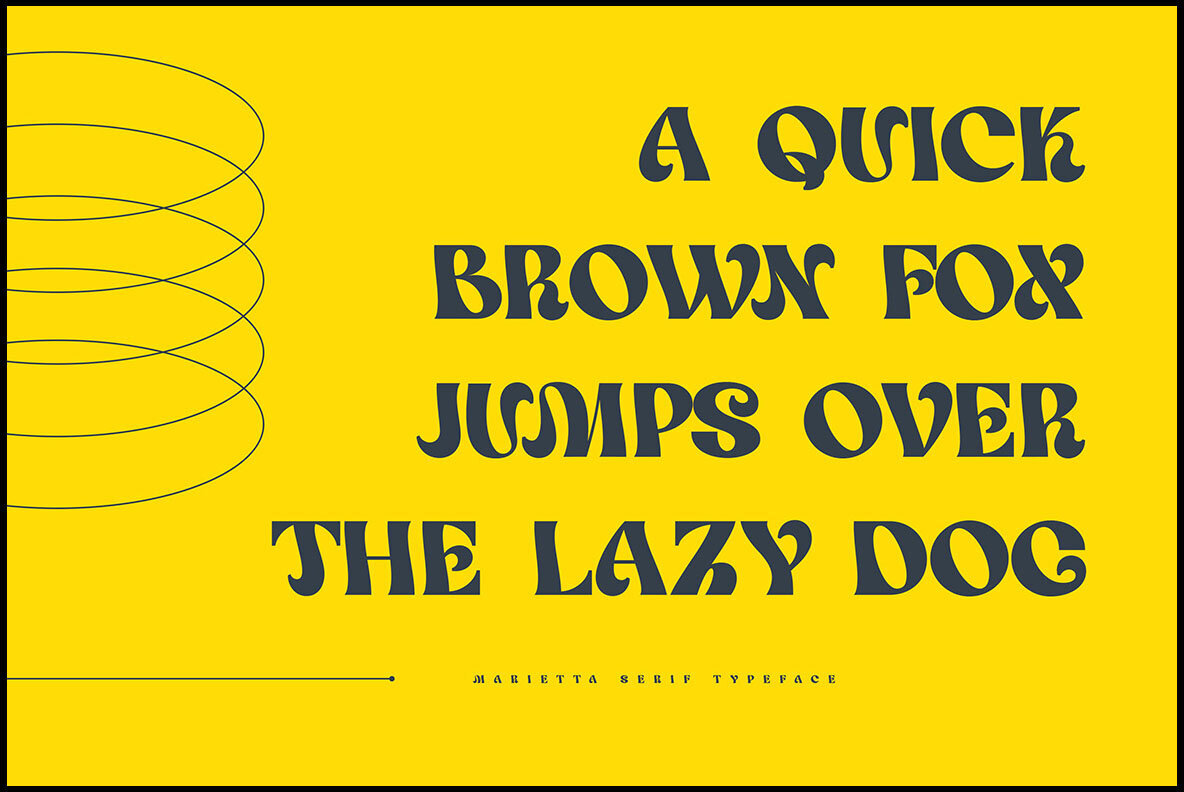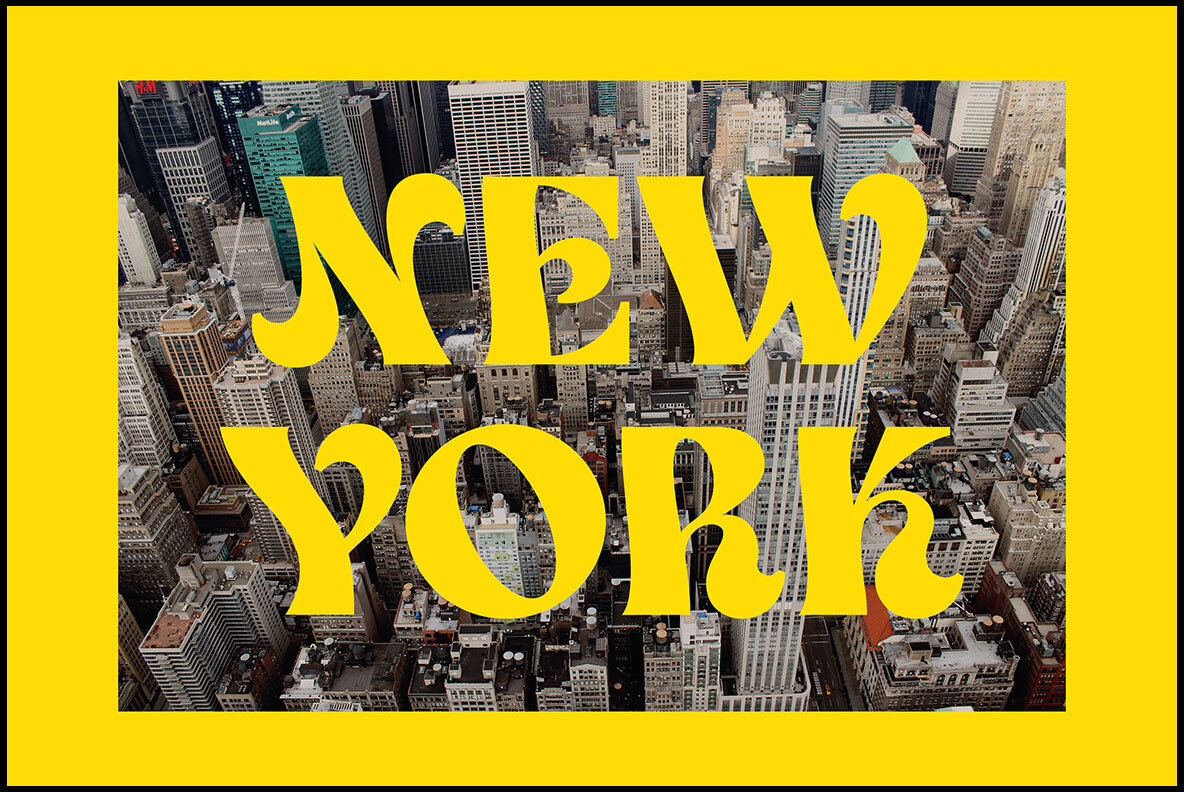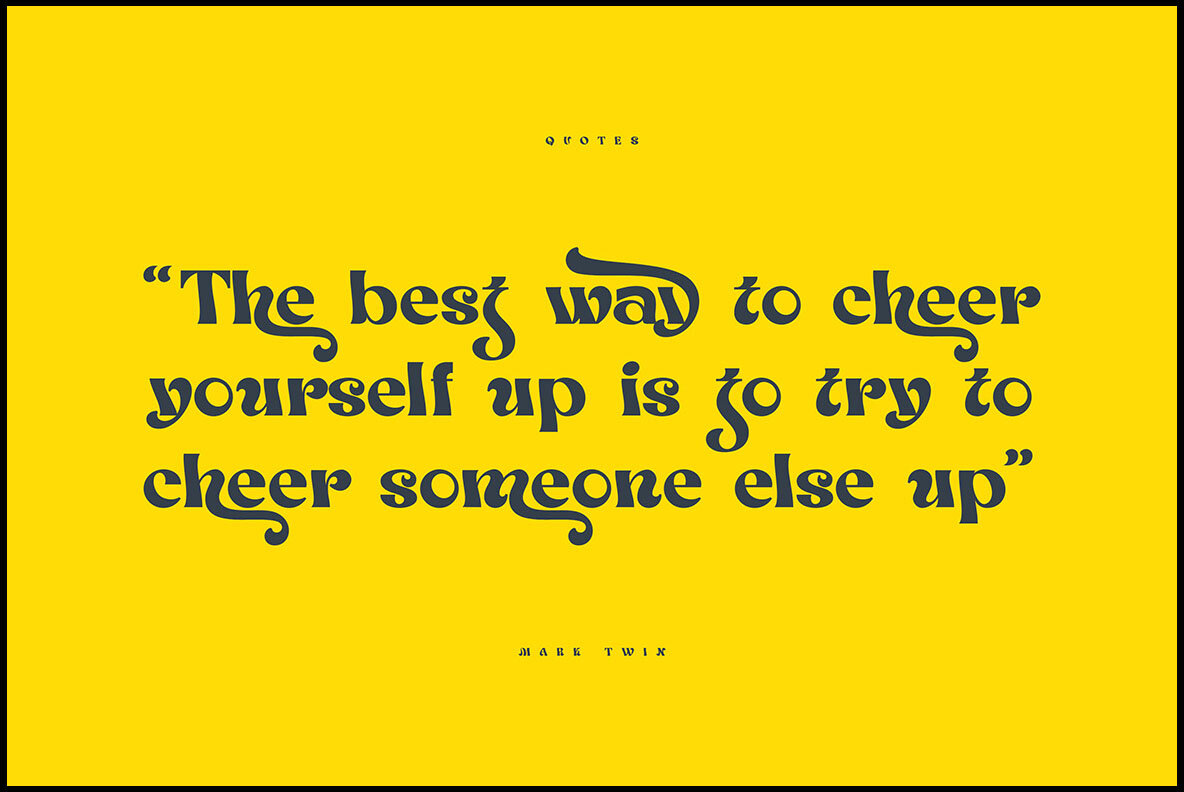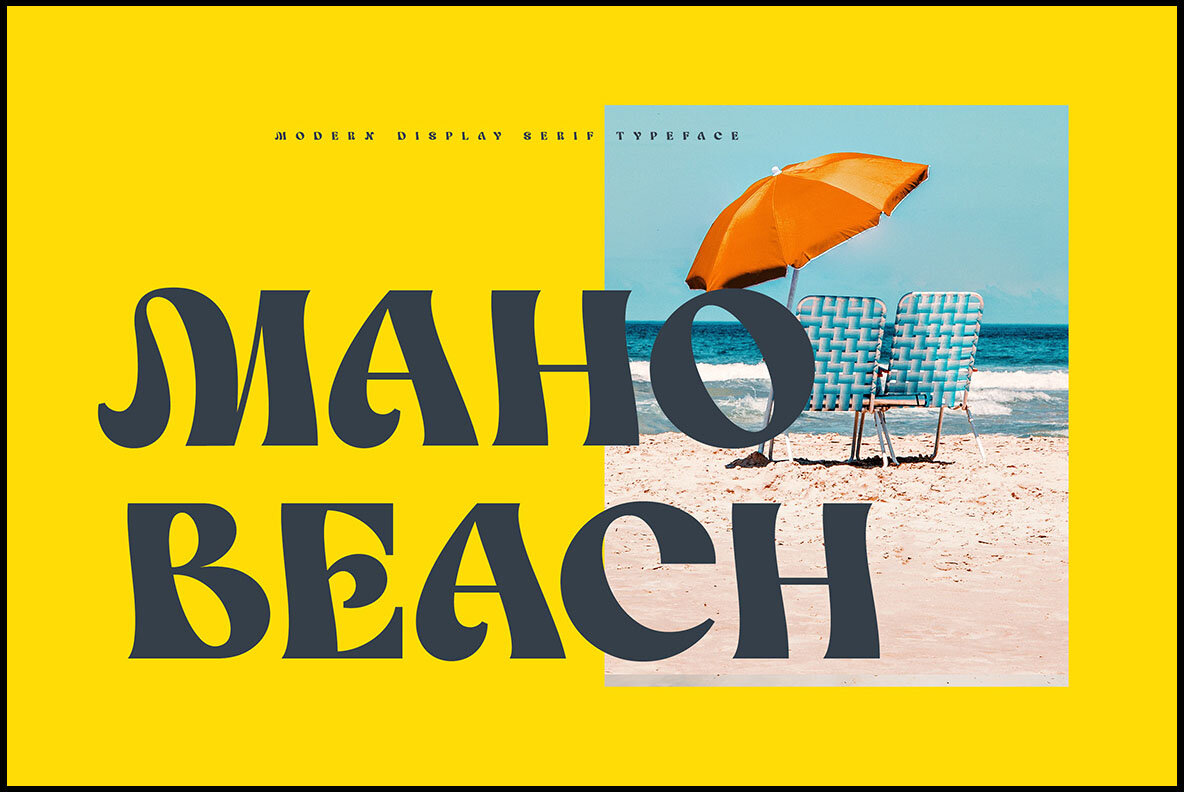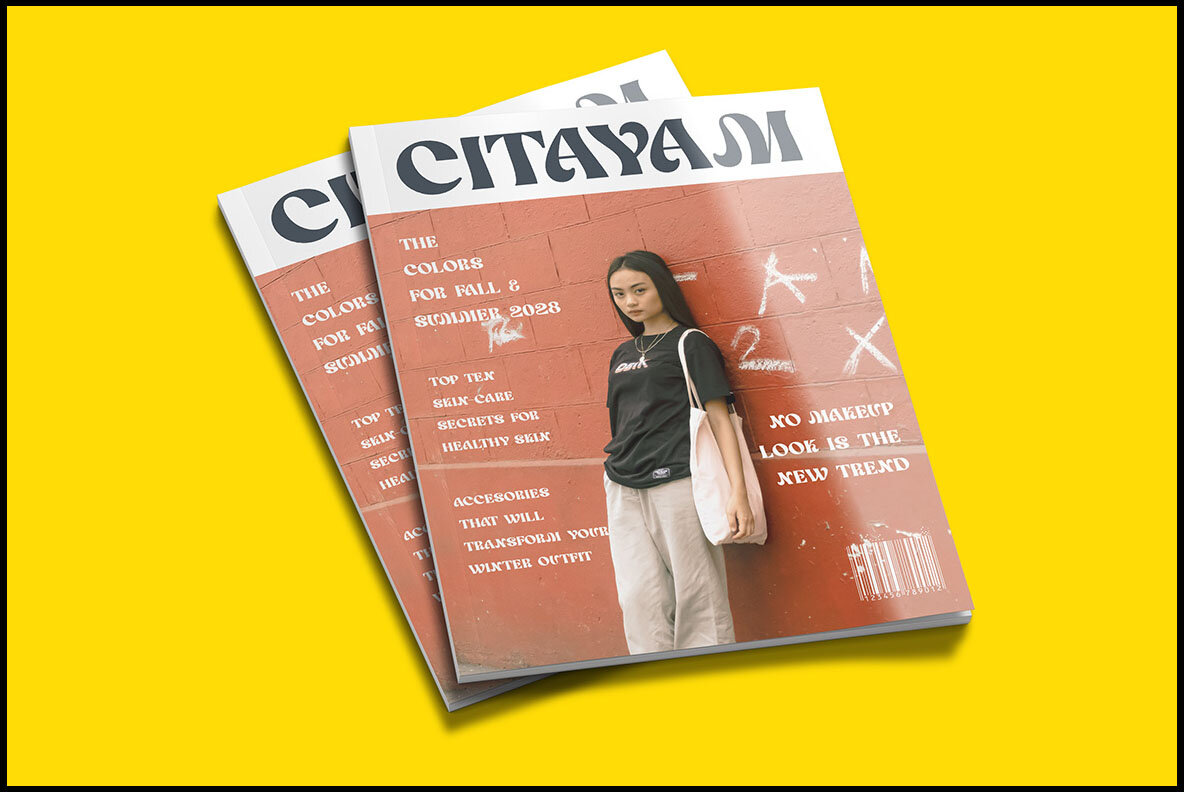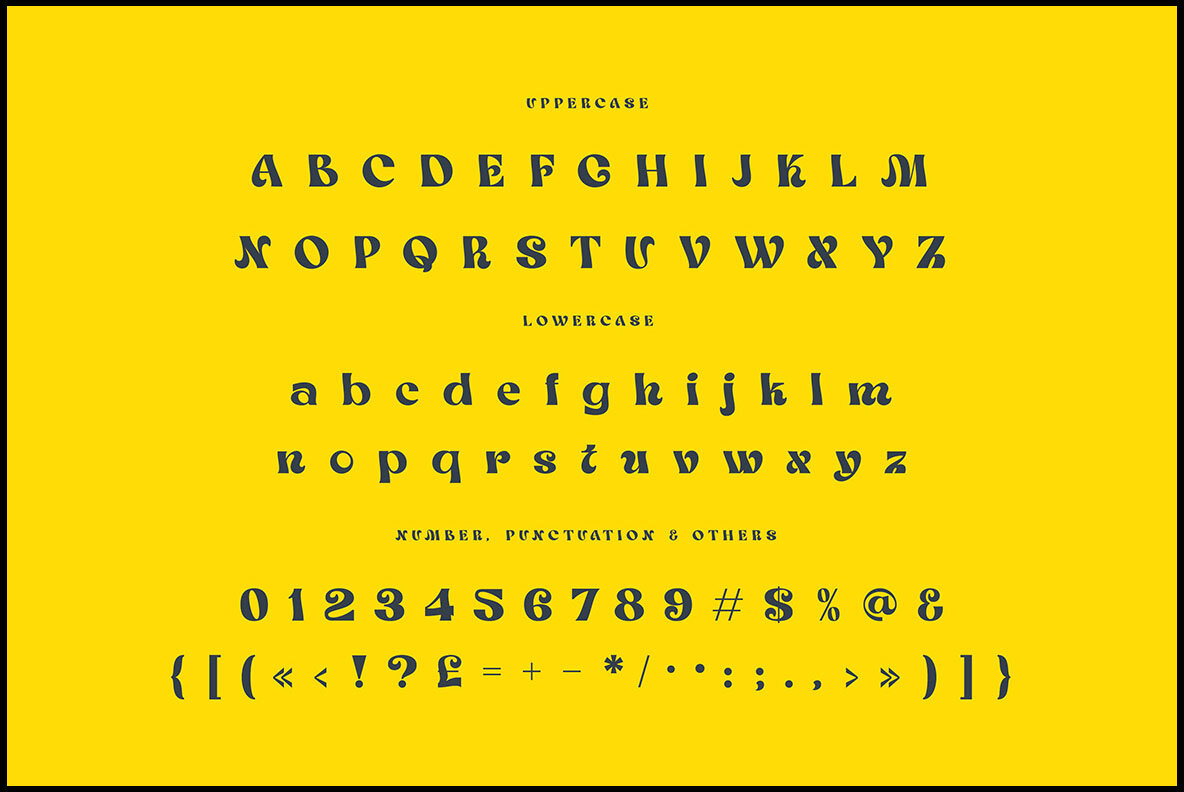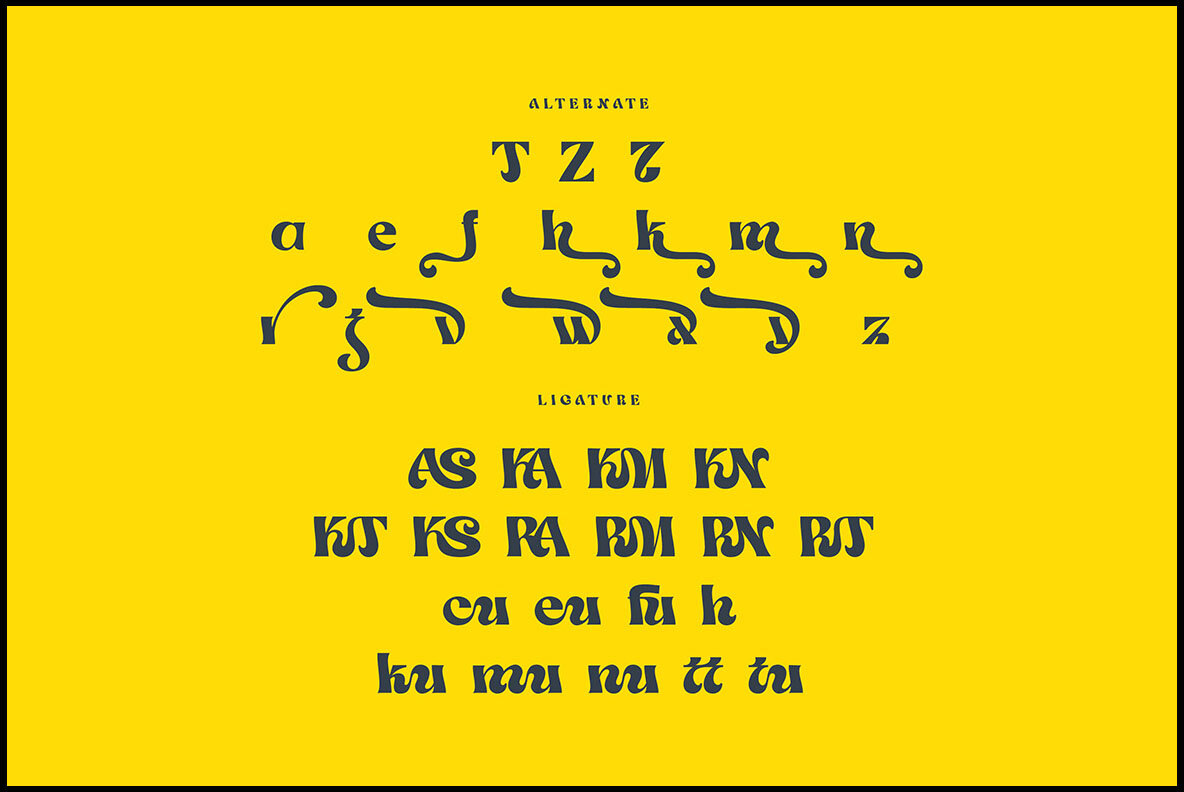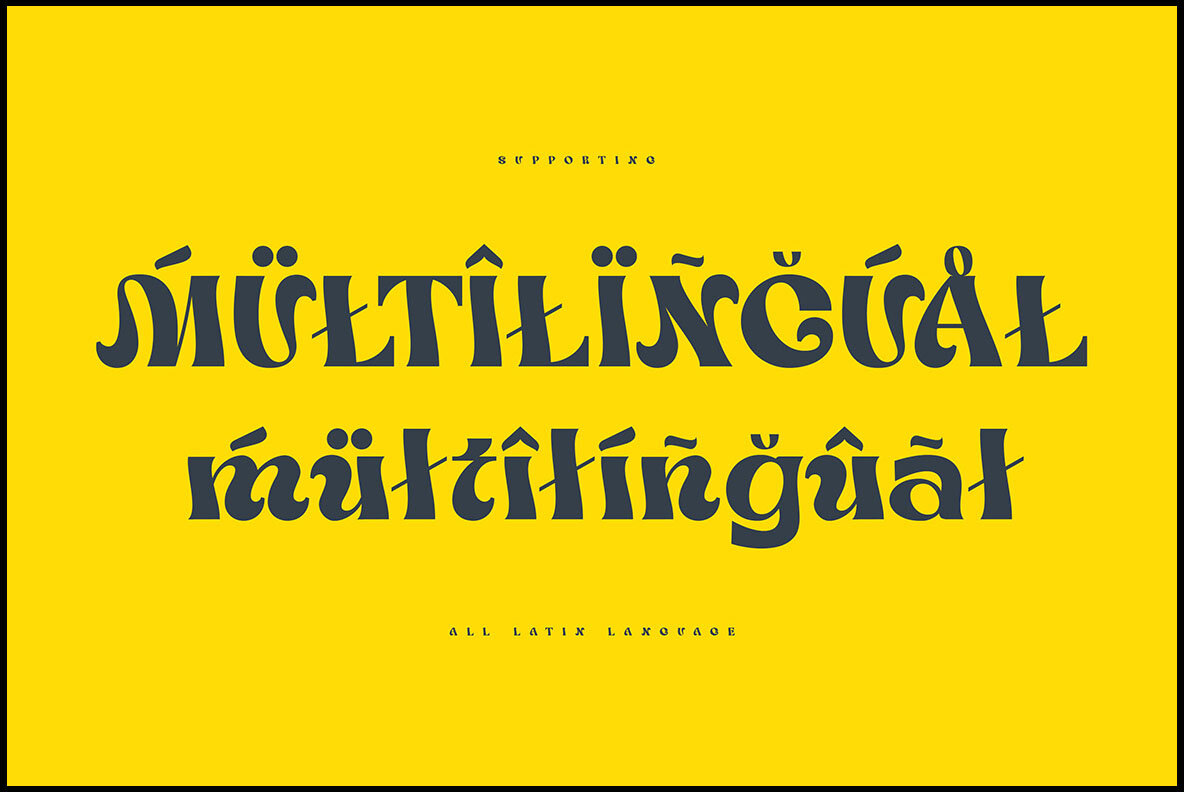
Marietta Font
Marietta Regular
The Marietta font by Peter Olexa brings a trendy and modern flair to your design projects. With its elegant, artistic, and groovy style, Marietta is an excellent choice for sophisticated branding initiatives. Its wide range of alternates and ligatures allows you to craft unique and original logo designs or website headers.Marietta: Groovy and Modern Serif Typeface